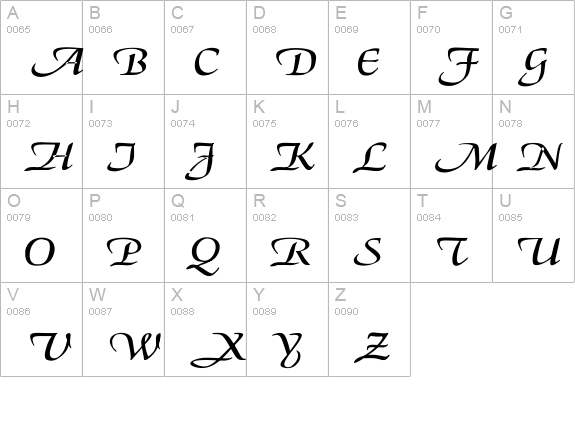
ElGar Wd font is a unique and stylish typeface that brings a touch of elegance to any design project. With its bold and striking appearance, this font is perfect for headlines, posters, and branding materials. The wide spacing between letters gives it a modern and eye-catching look, making it stand out from the crowd. What makes ElGar Wd font even more appealing is that it is available for free! You can easily download this font from FontsMarket.com and use it in your personal and commercial projects without any restrictions. Don't miss out on the opportunity to add this stunning font to your collection today!